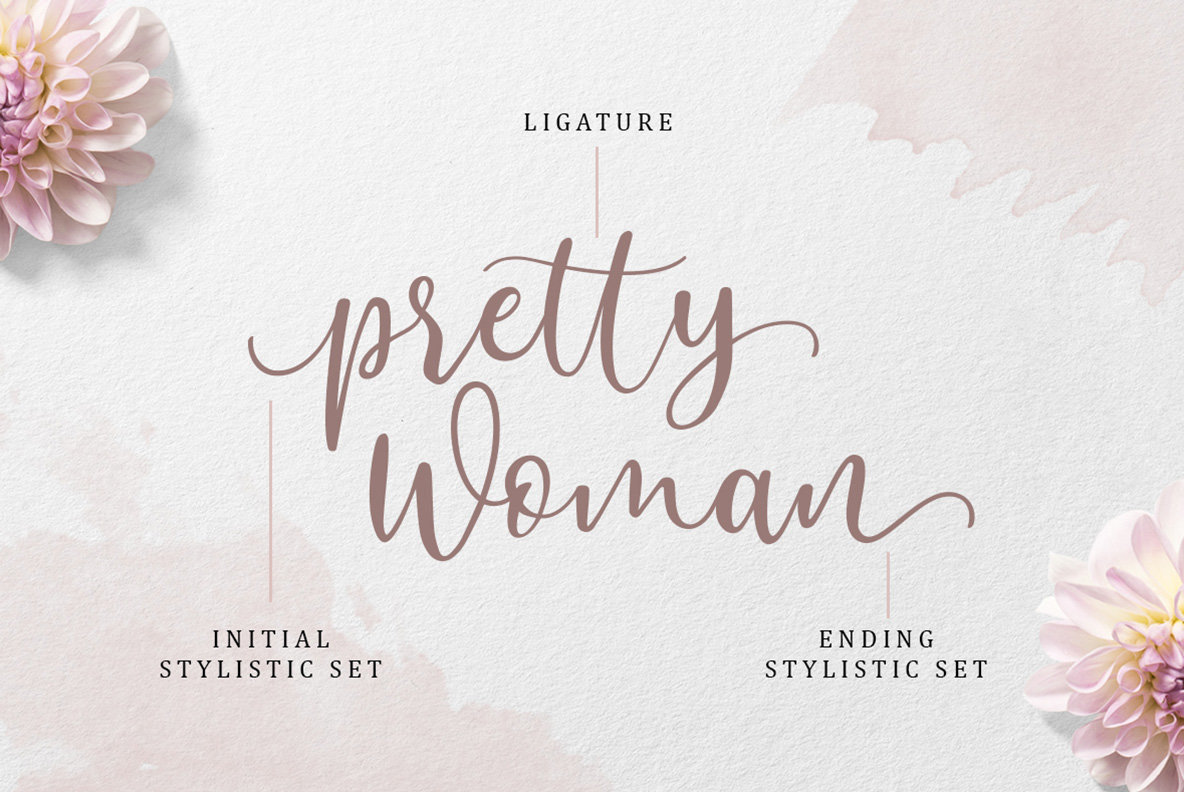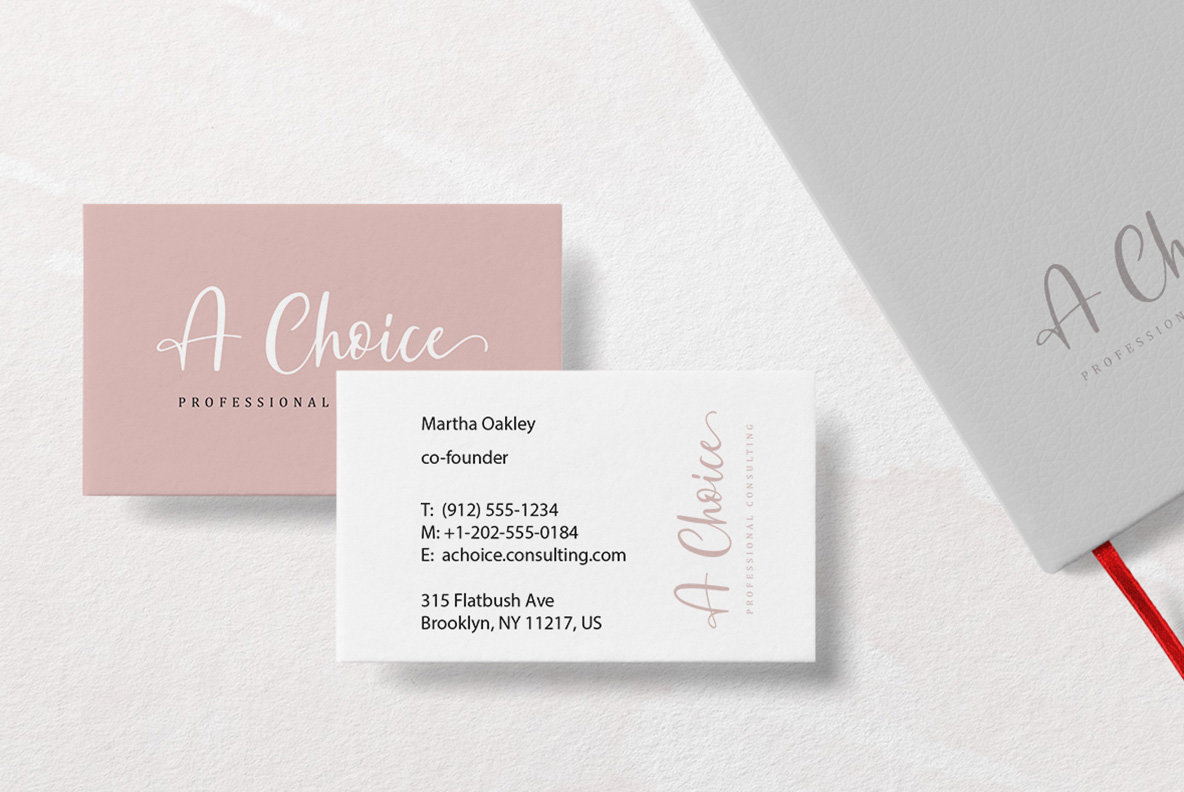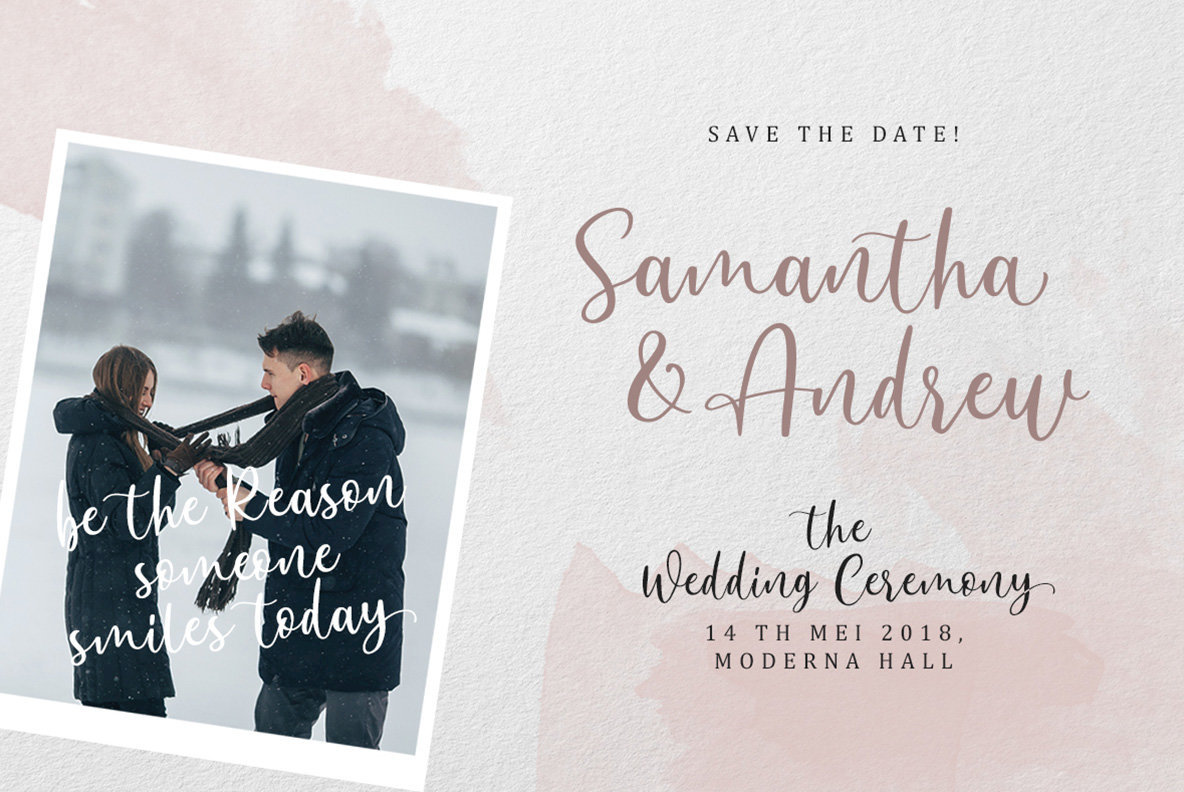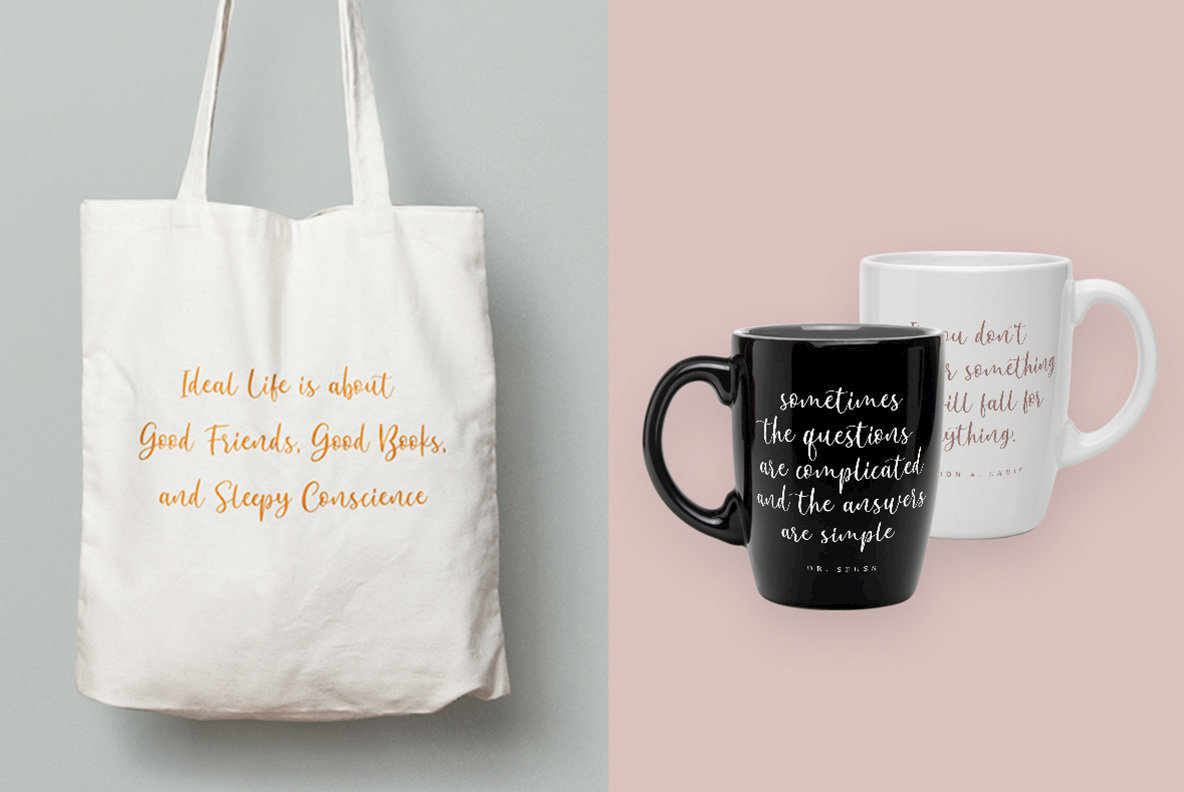
Anjani Script Font
Anjani Script
Anjani Script by Letterhend Studio brings a romantic feel with its modern calligraphy. Its natural handwriting style is ideal for designers seeking a sophisticated typeface for diverse applications. Whether crafting headlines, logotypes, or apparel, Anjani Script offers versatility and elegance perfect for invitations, branding, packaging, and advertising.Anjani Script: Modern Calligraphy with a Romantic Touch